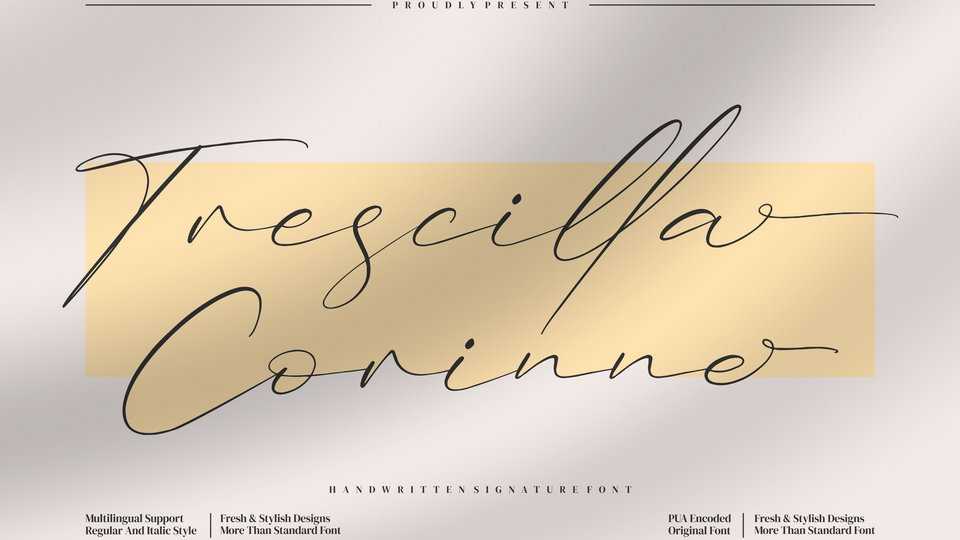
Download Trescilla Corinne font, a sweet, whimsical and thin script typeface. Featuring characters that dance along the baseline, Trescilla Corinne will add a luxury spark to any design project that you wish to create.